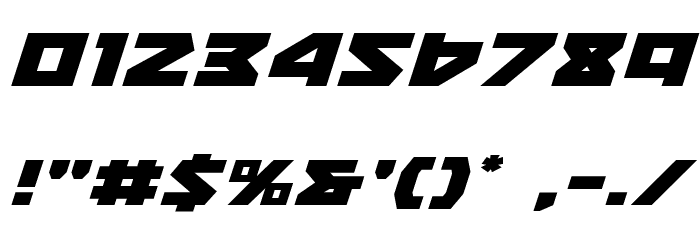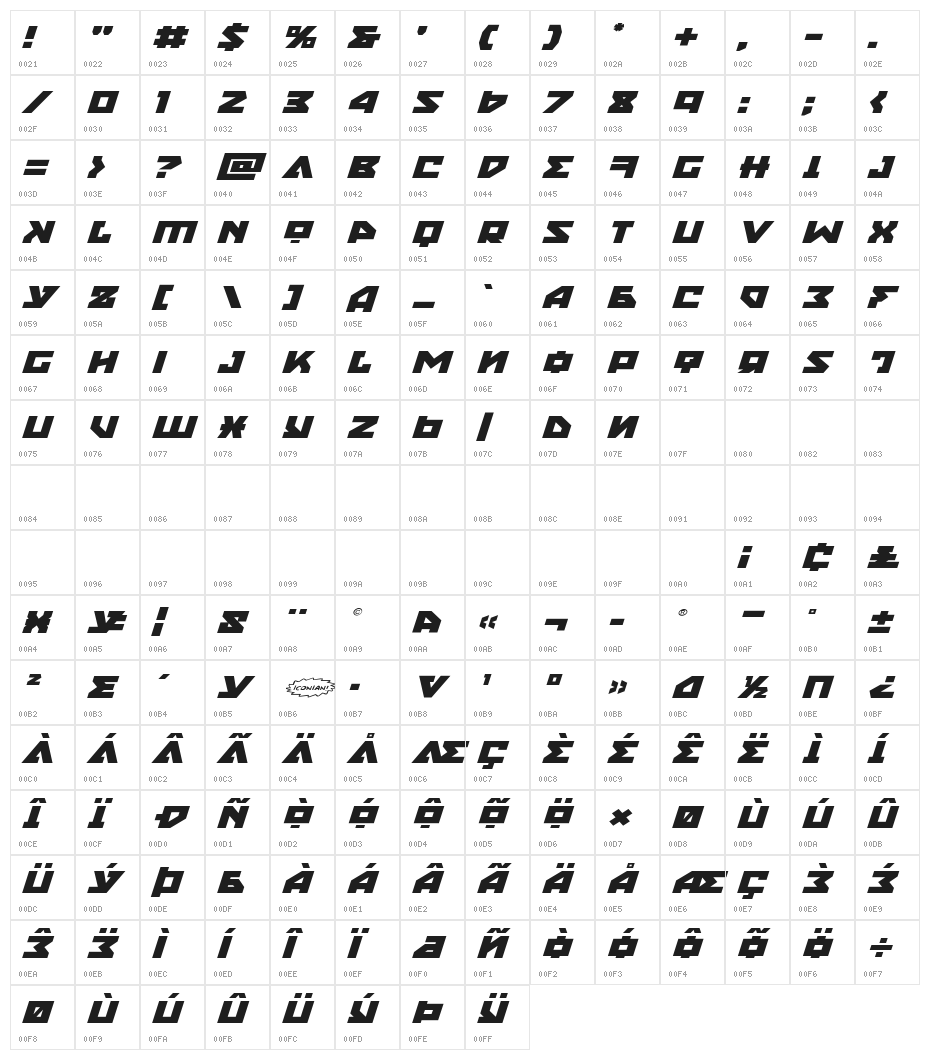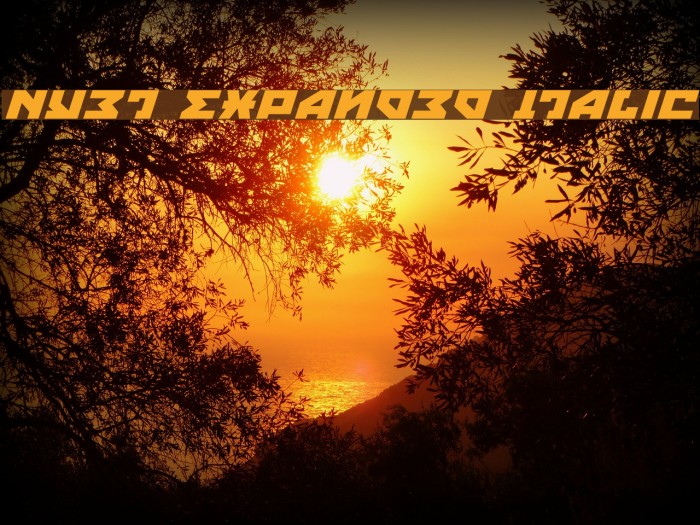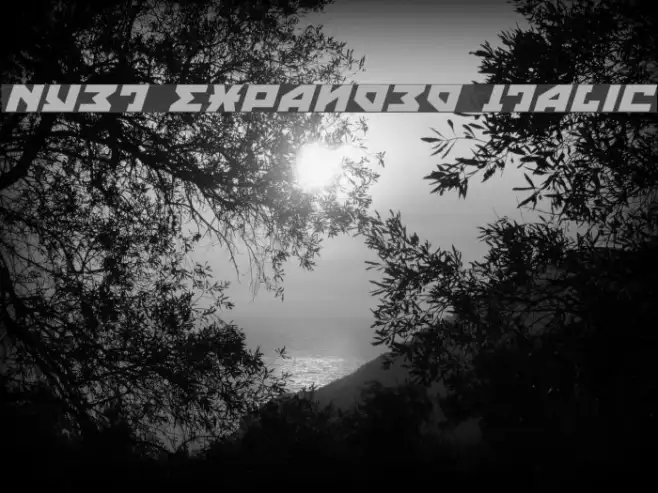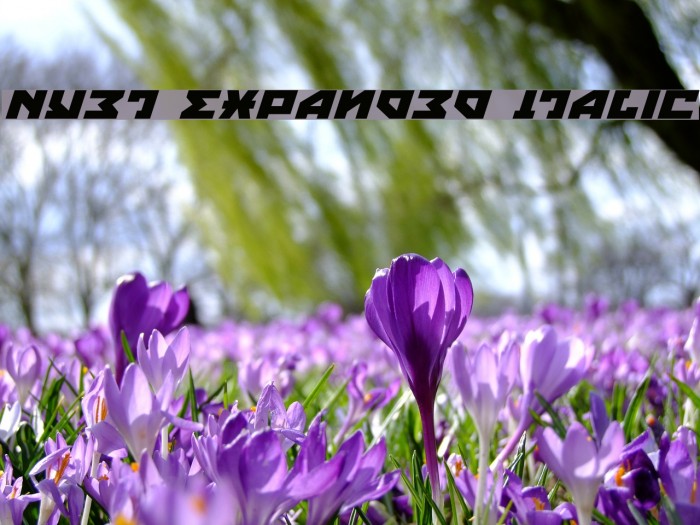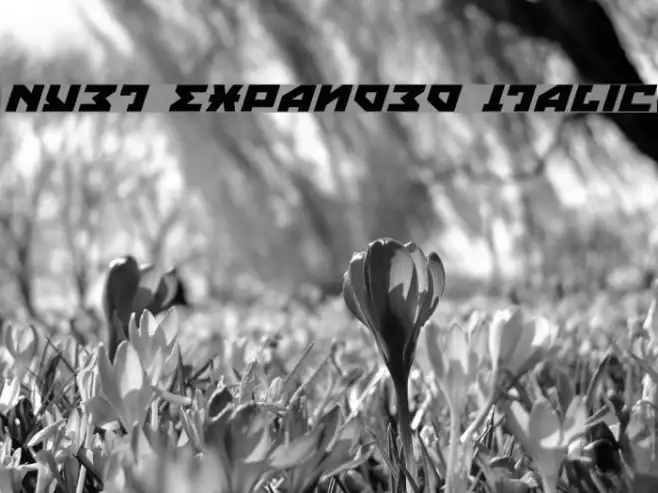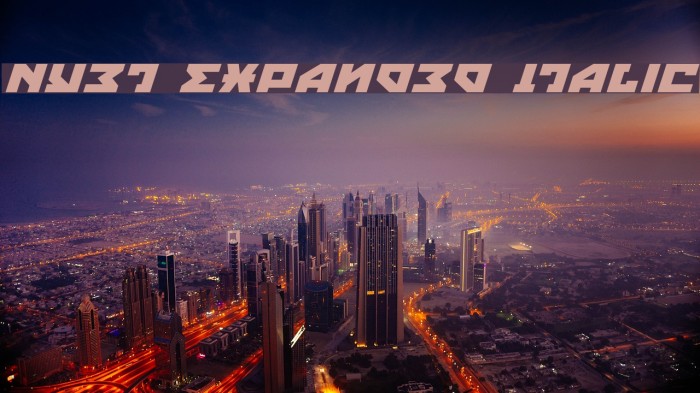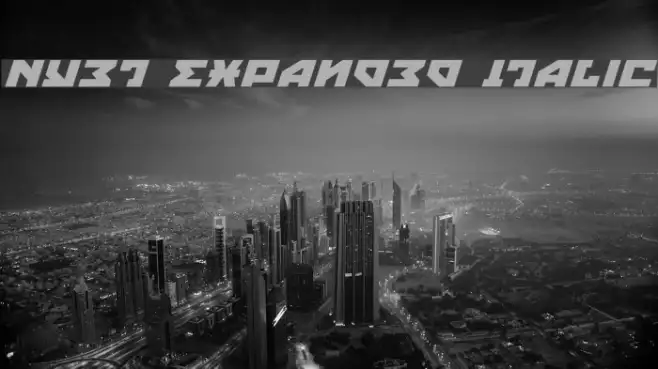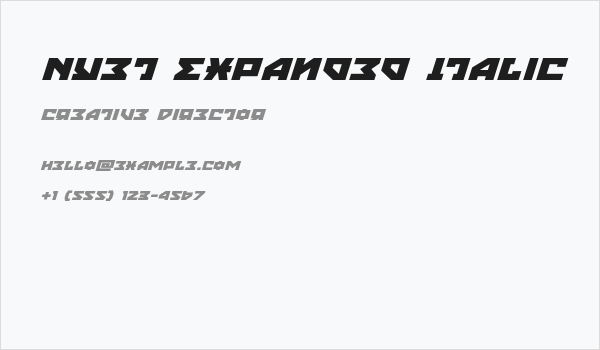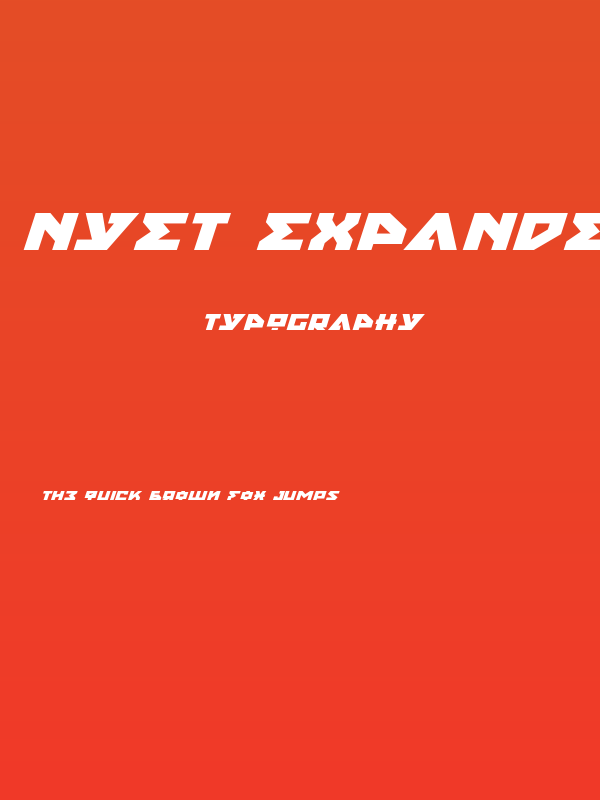
Nyet Expanded Italic Font
Nyet Expanded Italic Description
This font features a bold, angular design with a futuristic and dynamic appearance. The characters are sharply cut with distinct geometric shapes, giving them a strong and assertive presence. The italic style adds a sense of motion and speed, enhancing its modern aesthetic. The expanded width of the characters provides a wide stance, making each letter stand out prominently. This font is ideal for projects that require a bold statement, such as branding, headlines, or posters. Its unique style captures attention and conveys a sense of innovation and forward-thinking.
Proposed ProjectsIdeal for branding, headlines, posters, and any project needing a bold, modern look.